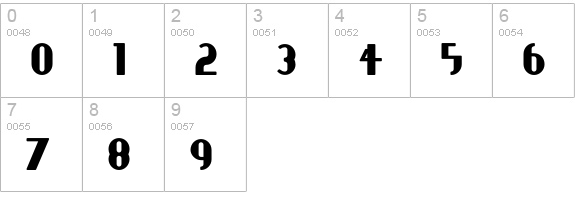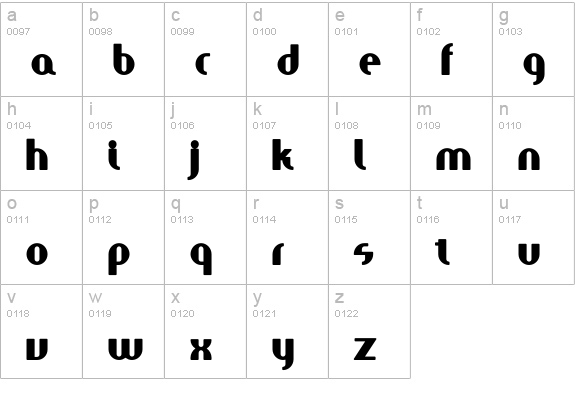
FastGirls-BCup Font Details
FastGirls-BCup is a dynamic and modern display font that exudes energy and style. With its sleek and bold letterforms, this font is perfect for making a statement in any design project. The unique combination of sharp angles and smooth curves gives FastGirls-BCup a distinctive look that is both eye-catching and memorable. Best of all, FastGirls-BCup is available for free download at FontsMarket.com. This means you can easily add this striking font to your collection without any cost. Whether you are designing a poster, logo, or website, FastGirls-BCup will bring a fresh and exciting touch to your projects. Don't miss out on the opportunity to enhance your designs with this free and fabulous font!